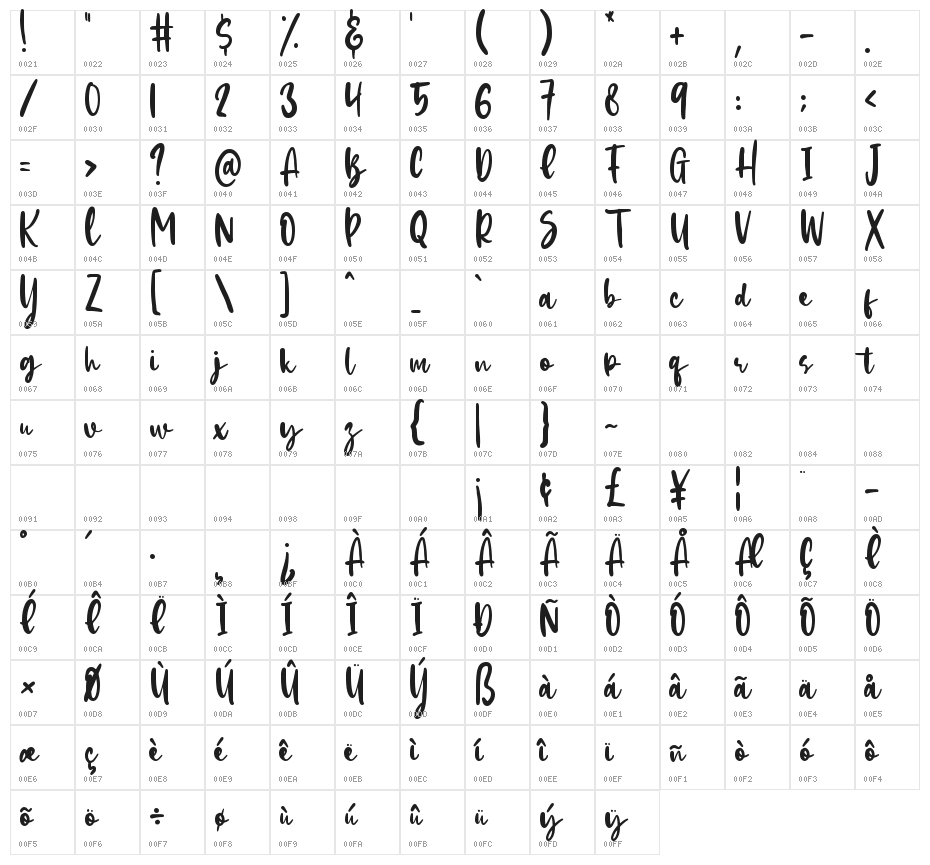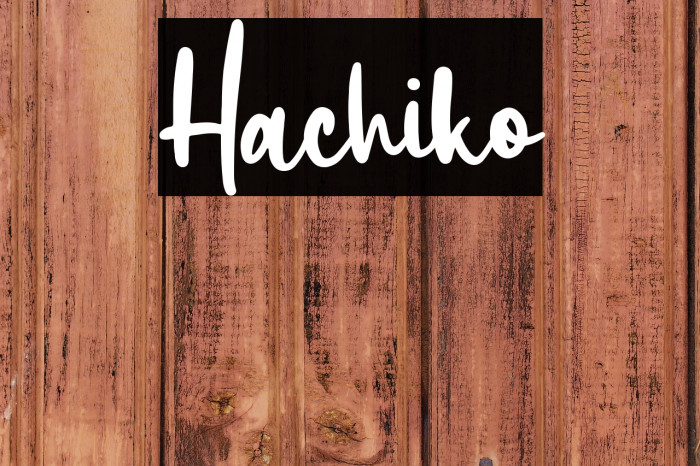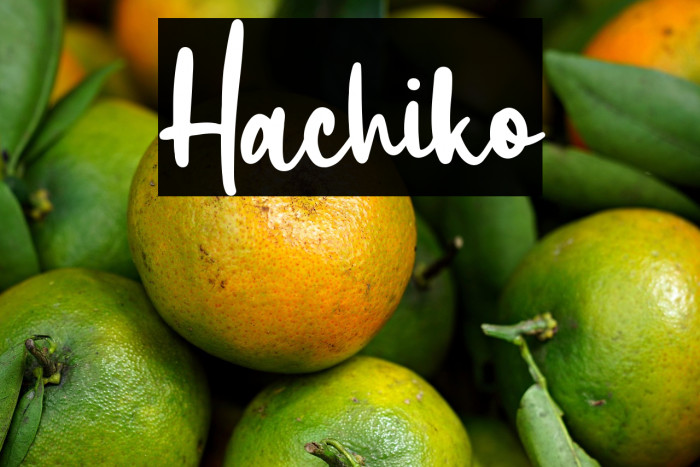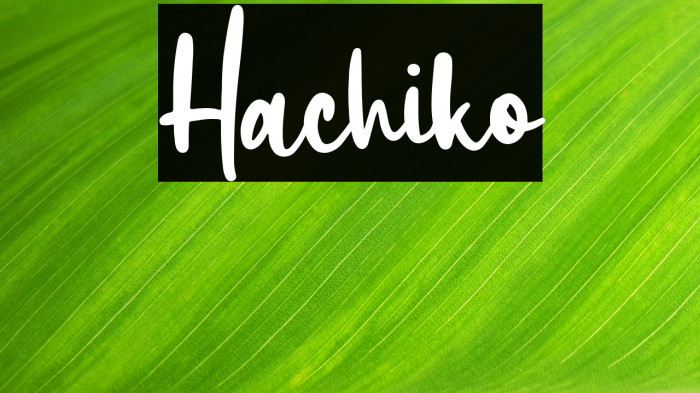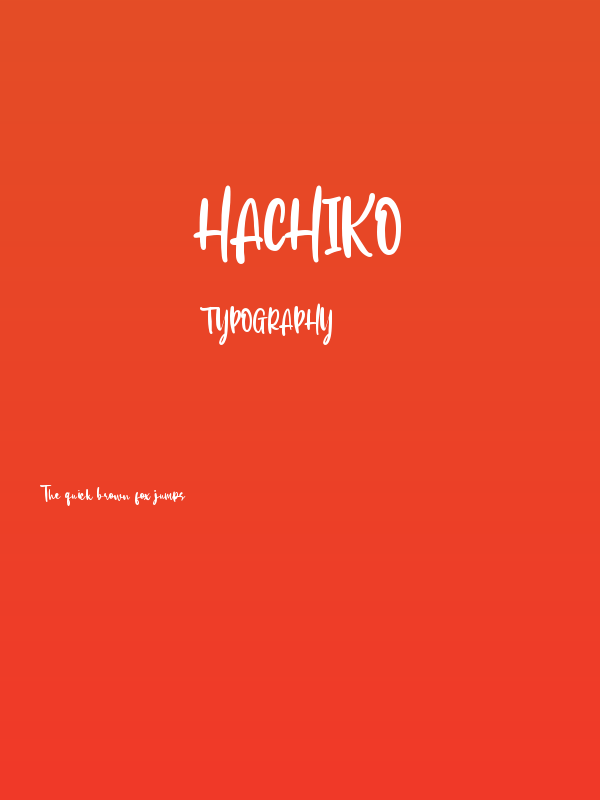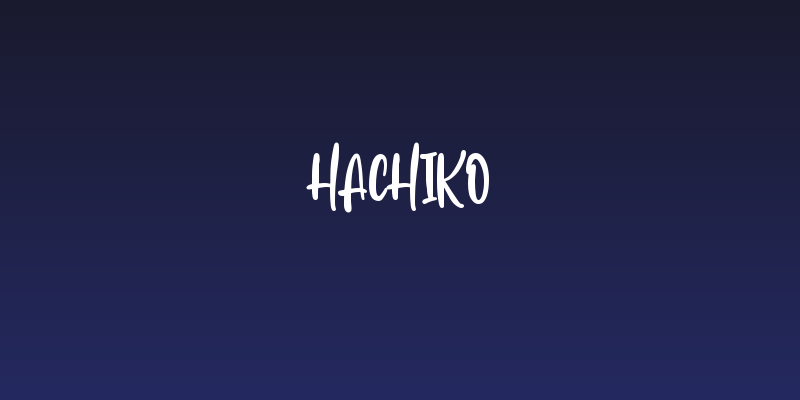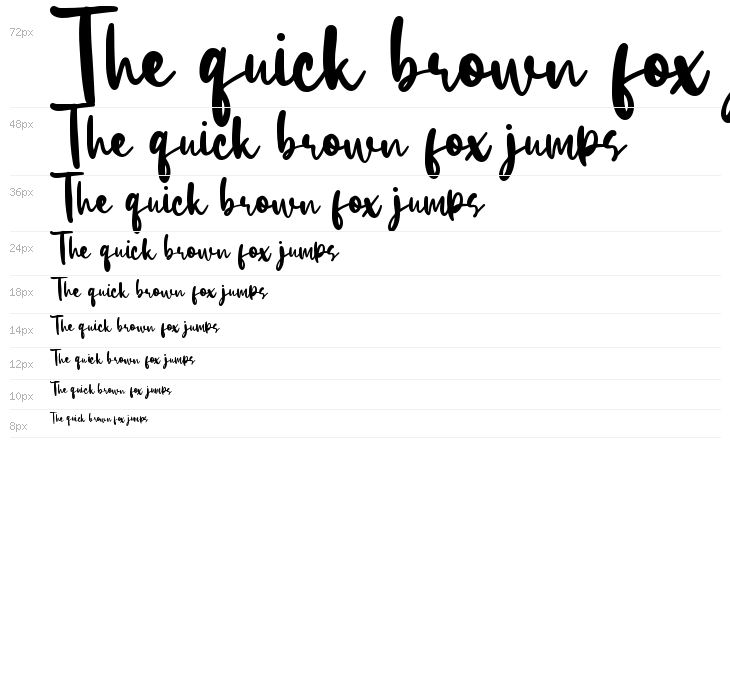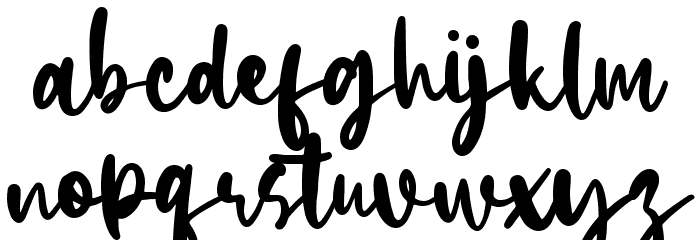
Hachiko Font
Hachiko Description
This font features a playful and dynamic handwritten style, characterized by its bold and fluid strokes. The uppercase letters are tall and slightly condensed, with a whimsical flair that adds personality. The lowercase letters are more cursive, with smooth, flowing connections that create a sense of movement. Numbers and special characters maintain the same lively aesthetic, ensuring consistency across all glyphs. The overall appearance is both casual and expressive, making it suitable for projects that require a personal touch.
| Proposed Projects | Ideal for greeting cards, invitations, personal branding, and creative social media graphics. |